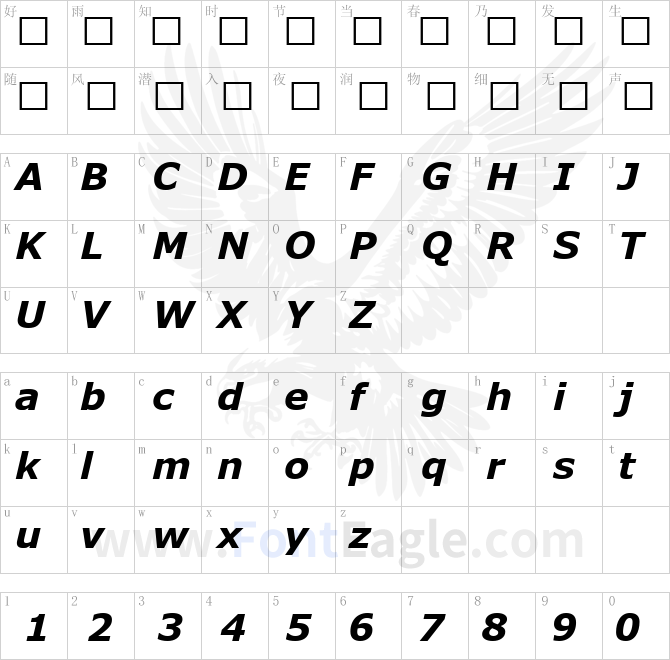
Verdana-Bold-Italic is a great font, widely used in graphic design, single-page menu design, poster design and other fields, and is deeply loved by designers.Verdana-Bold-Italic download.